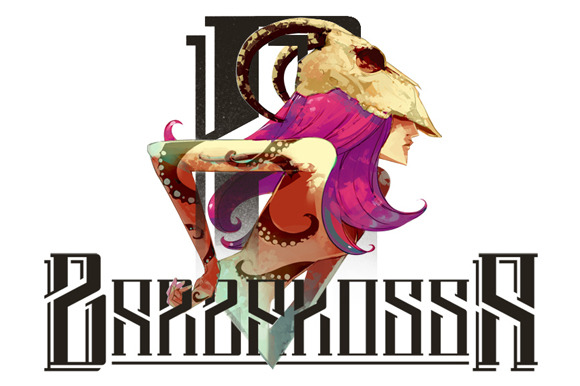
Barbarossa Typeface
Barbarossa is a typeface inspired by the hero character named Barbarossa. Represented from his origin, Turkish’s (Architecture). The typeface is a bold font, basically made from the structural and cubical rectangle form.
The Illustration was made by Poy. Poy make the artwork from her view about the typeface and the 'spirit' about the term 'hero'.